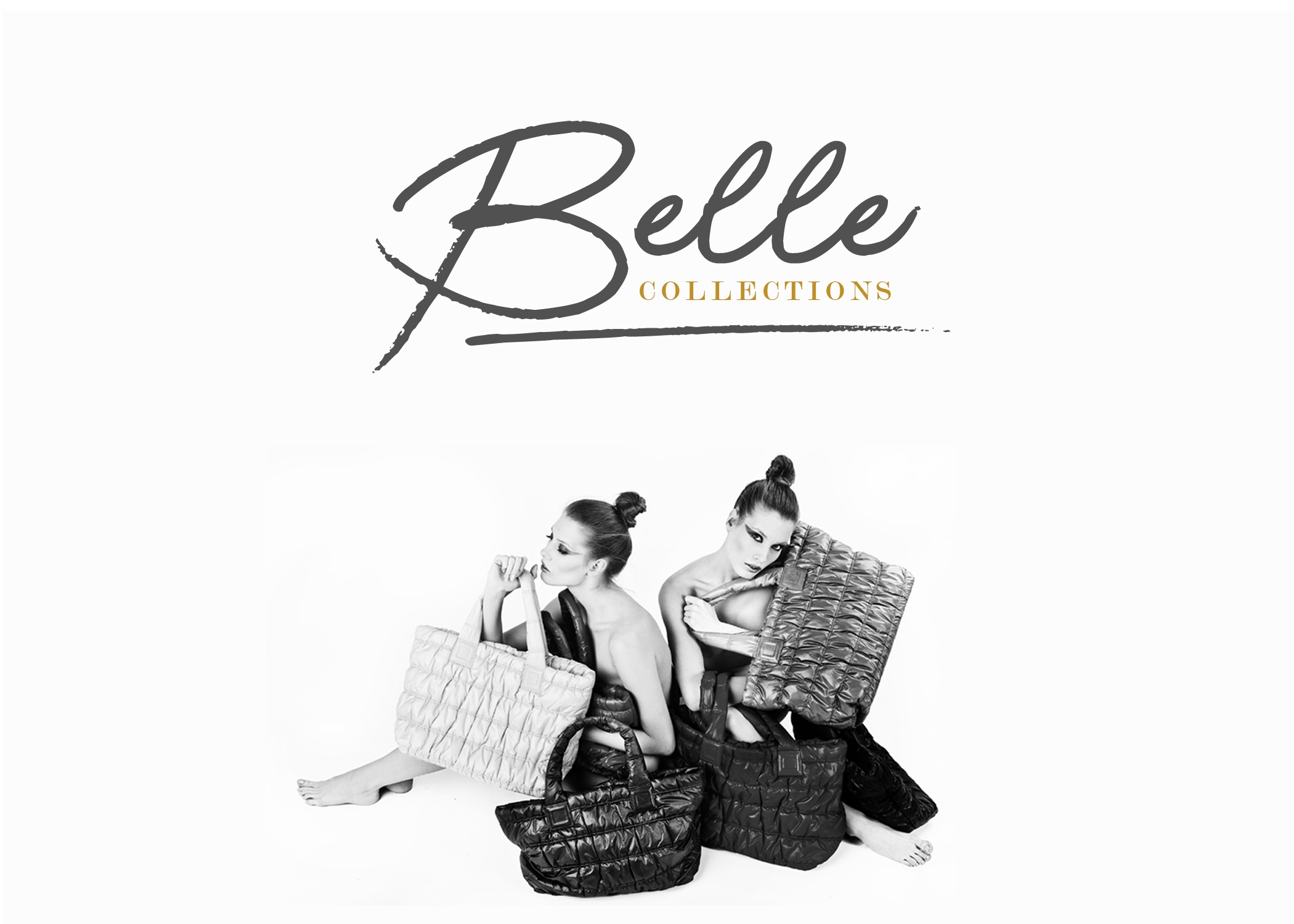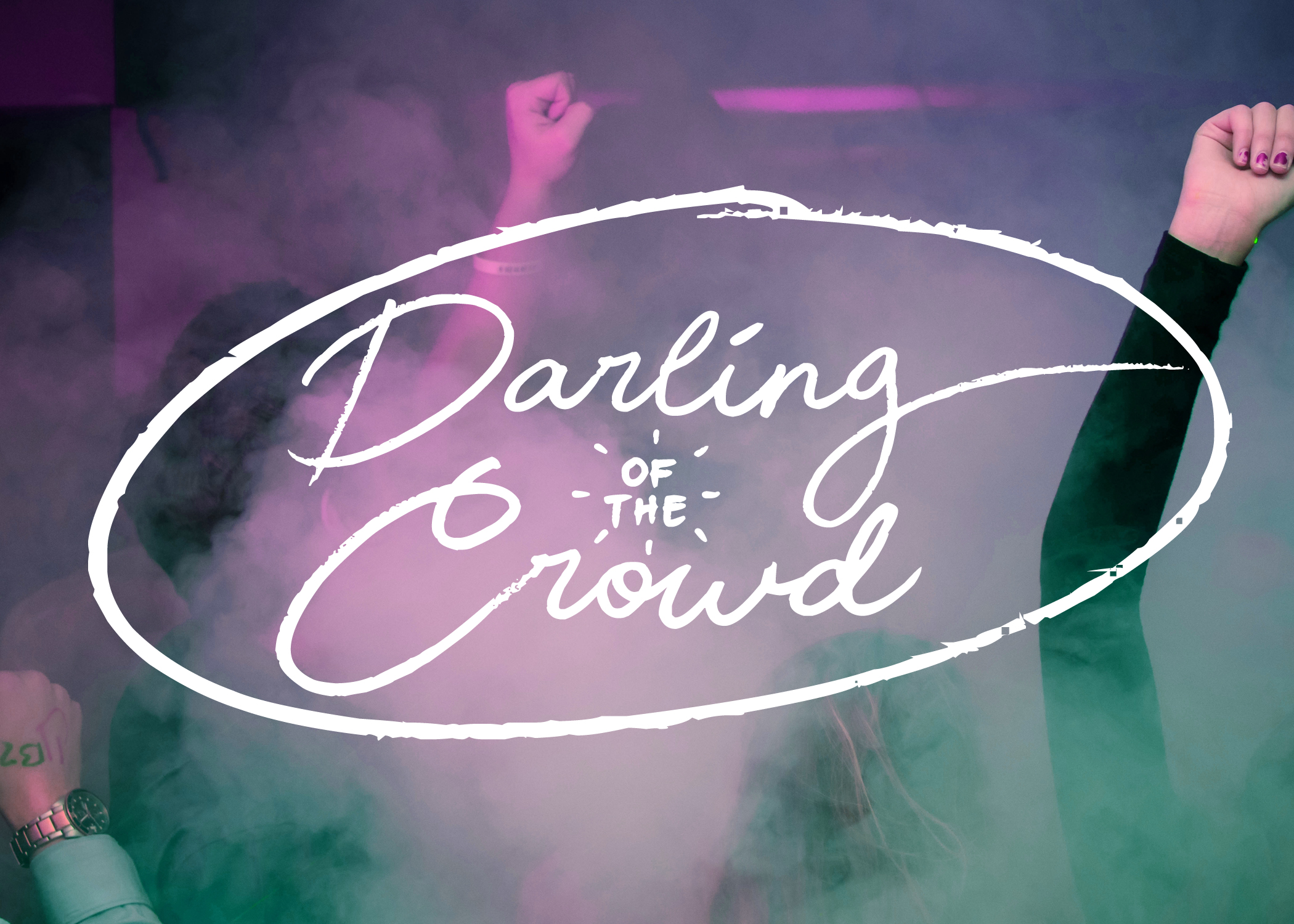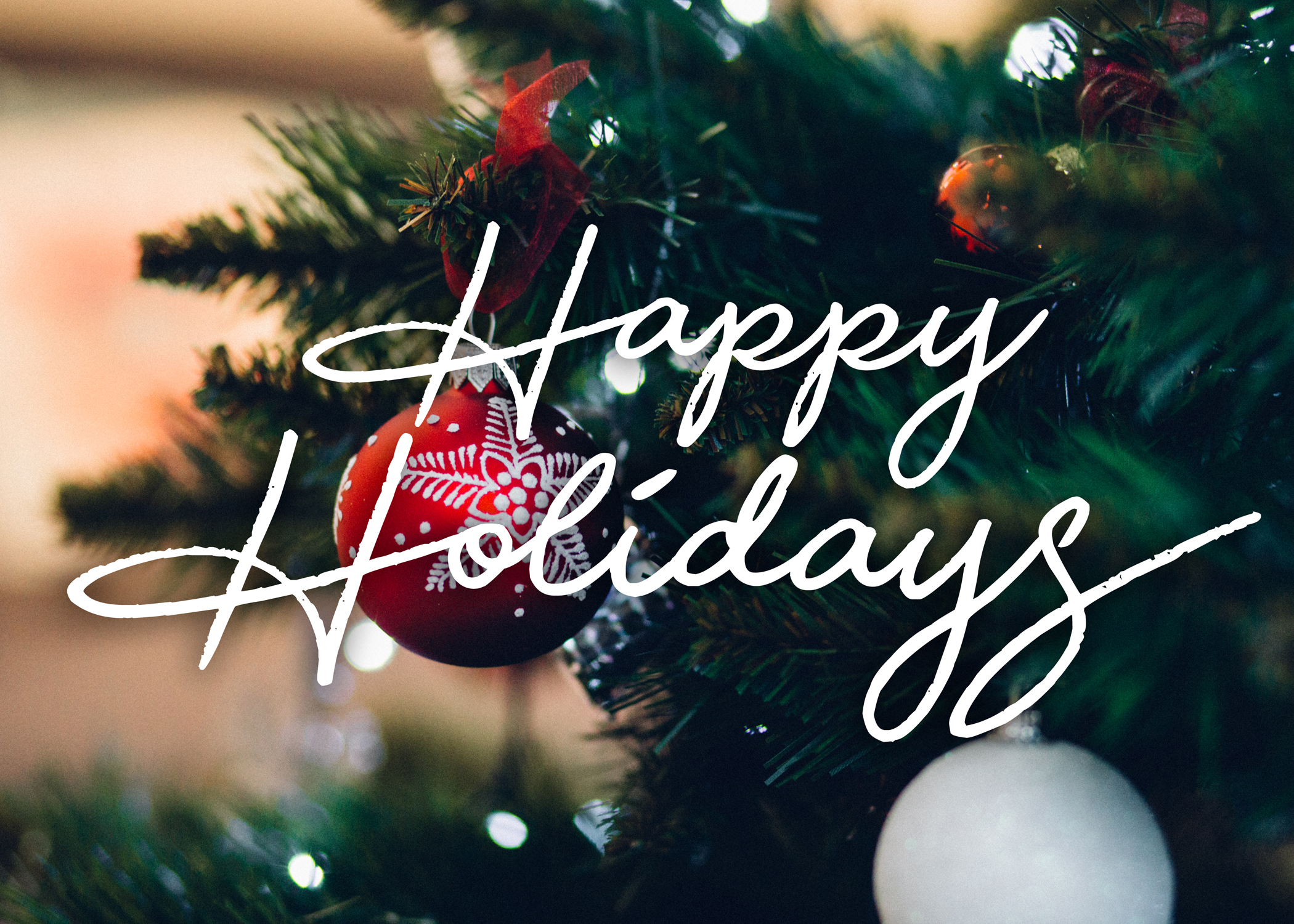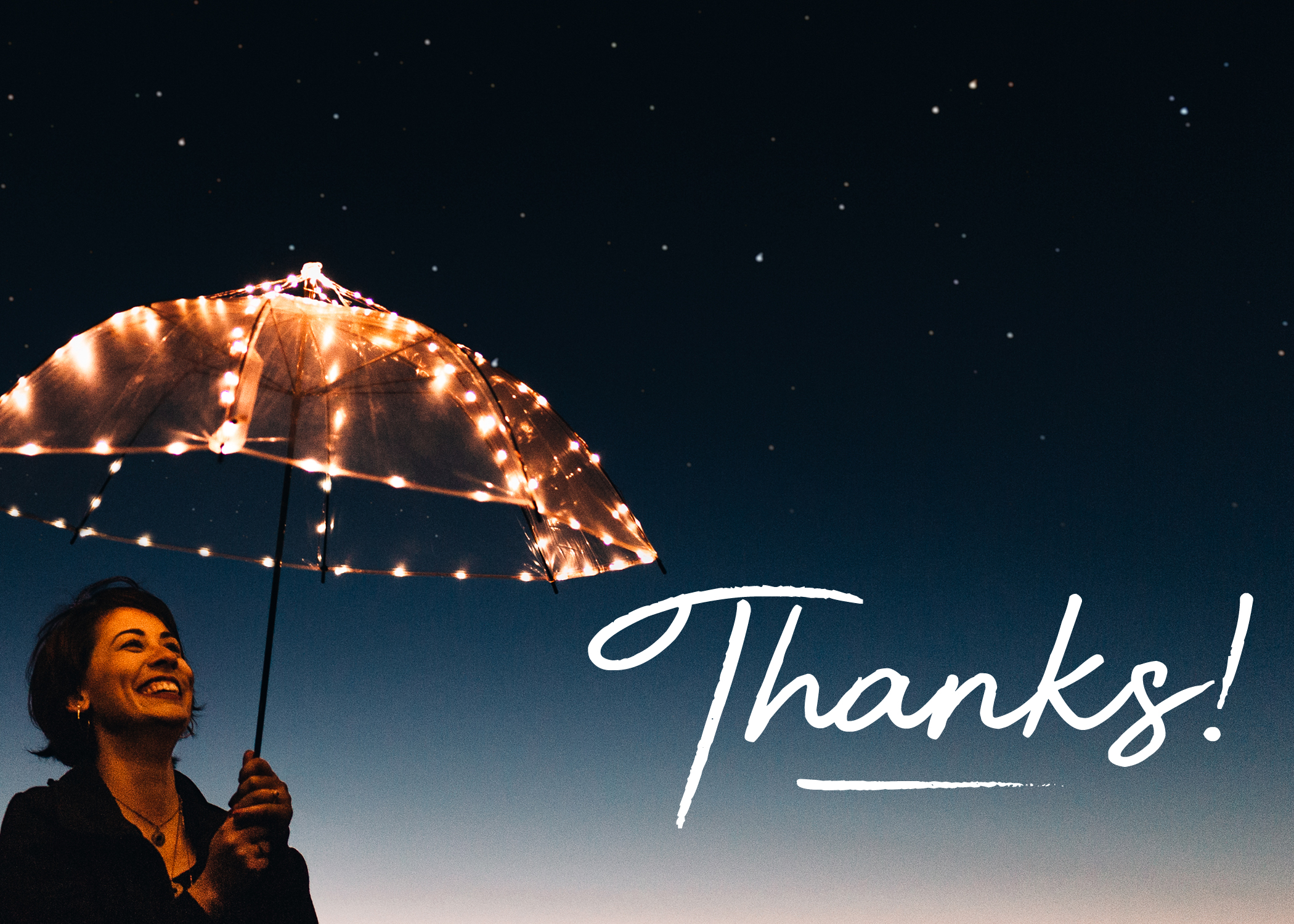
Beauty Font
About Beauty Font
Beauty is a unique, handwritten font. This detailed font is pleasant on the eyes.
It’s a great type to add to projects that need a personal touch.